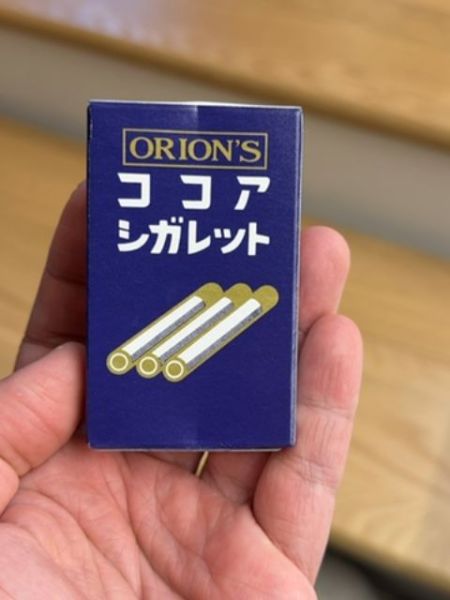
Orion's Cocoa Cigarette
A candy product shaped like cigarettes, intended for children or collectors as a novelty item.
The typography features a bold sans-serif font for the English text 'ORION'S', giving it a classic and straightforward appeal. The Japanese characters are also presented in a bold, clean typeface, enhancing readability and maintaining a modern feel against the vintage-inspired packaging.
The packaging is a small rectangular box with a deep blue background. It features a vintage Japanese aesthetic with bold white and gold accents, depicting illustrated cigarette shapes.
- The product is a popular novelty candy in Japan.
- It often appeals to both children and adults due to its whimsical design.
- The candy is cocoa-flavored and cylindrical, imitating the appearance of cigarettes.